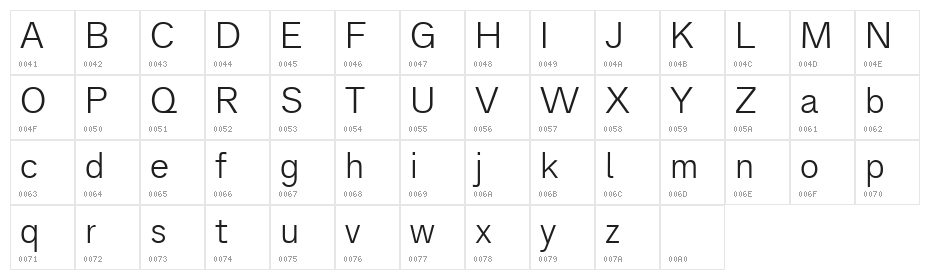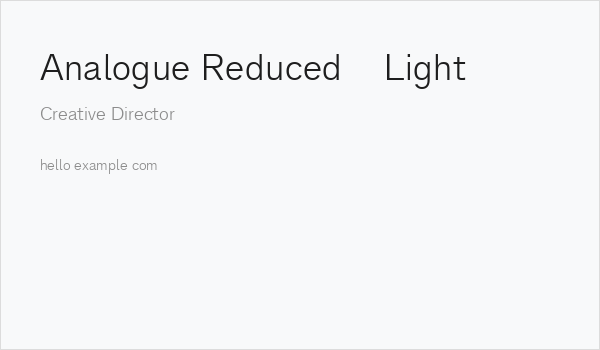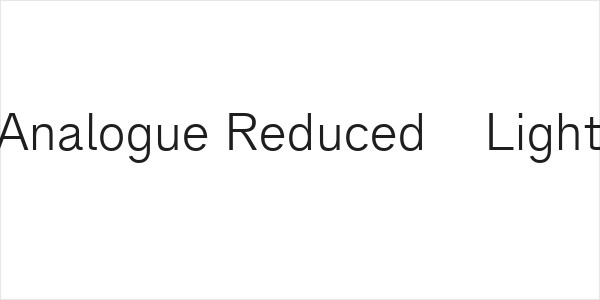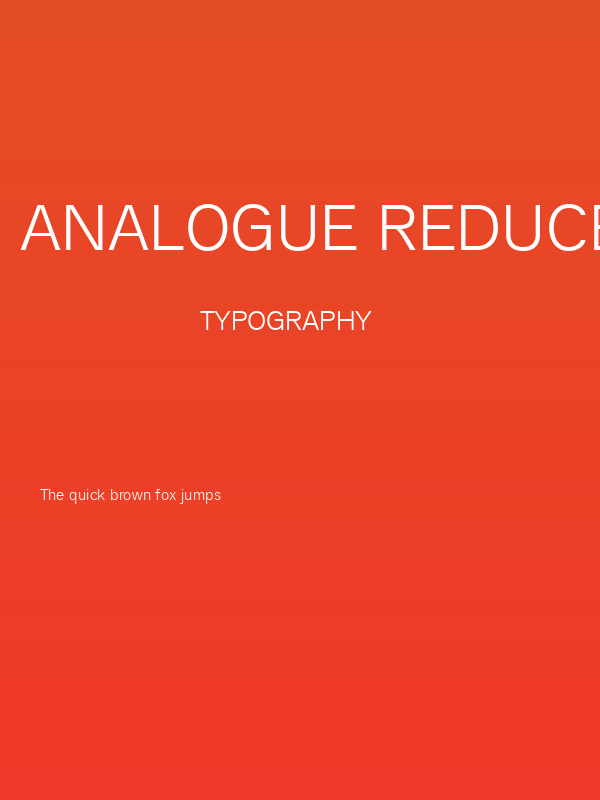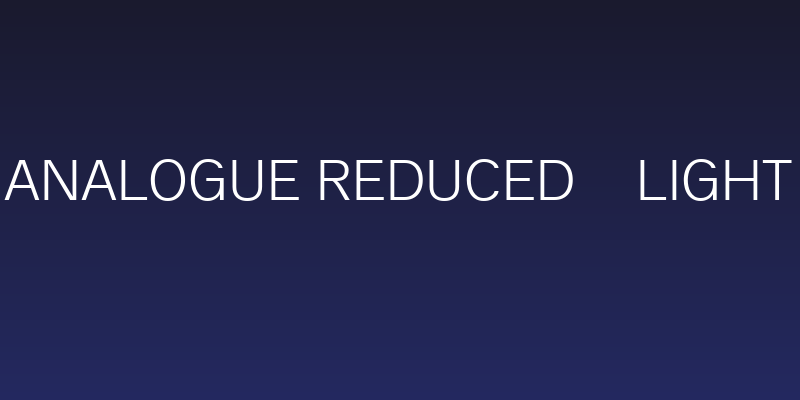
Analogue Reduced 45 Light Font
Analogue Reduced 45 Light Description
This font features a clean and modern design with a focus on readability and simplicity. The characters are evenly spaced with a consistent stroke width, providing a balanced and harmonious appearance. The uppercase and lowercase letters are well-proportioned, making it suitable for a variety of applications. Its geometric shapes and minimalistic style give it a contemporary feel, while the light weight adds an elegant touch. The font's versatility makes it ideal for both digital and print media, ensuring clarity and professionalism in any context.
Proposed ProjectsIdeal for branding, web design, corporate materials, and editorial layouts.